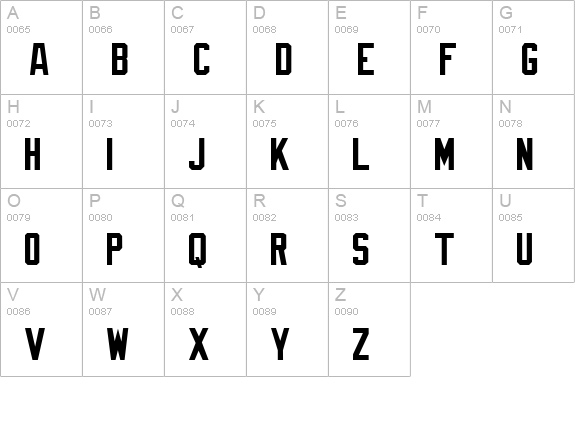
NFL Cardinals Font Details
The NFL Cardinals font is a bold and dynamic typeface that perfectly captures the spirit of the Arizona Cardinals football team. With its strong and confident letterforms, this font exudes power and determination, just like the players on the field. The NFL Cardinals font is a versatile typeface that can be used for various design projects, both on and off the gridiron. Whether you're designing a sports poster, creating a team logo, or even just adding some flair to your social media posts, this font is sure to make a bold statement. One of the best things about the NFL Cardinals font is that it is free! Yes, you read that correctly. This amazing typeface is freely available to download at FontsMarket.com. Now you can bring the essence of the Arizona Cardinals to your designs without spending a dime. Don't miss out on this incredible opportunity to add some football-inspired flair to your designs. Download the NFL Cardinals font today and let your creativity soar. Whether you're a die-hard Cardinals fan or just appreciate a well-designed typeface, this font is sure to impress.